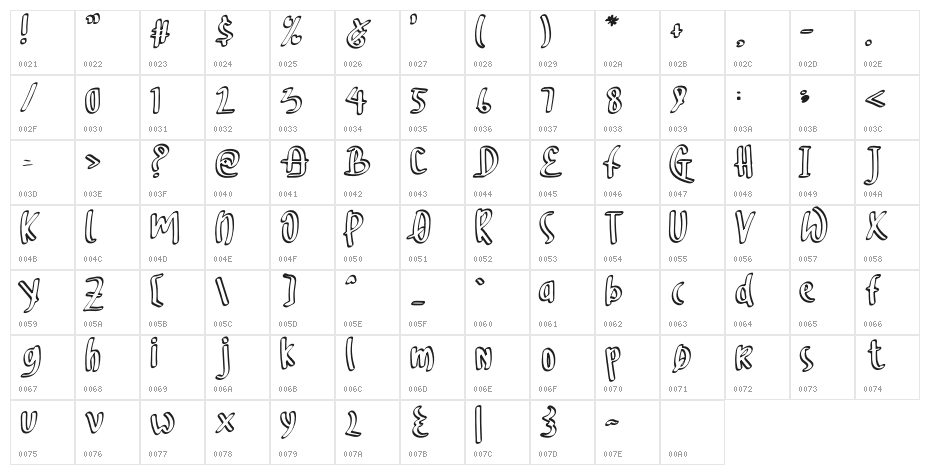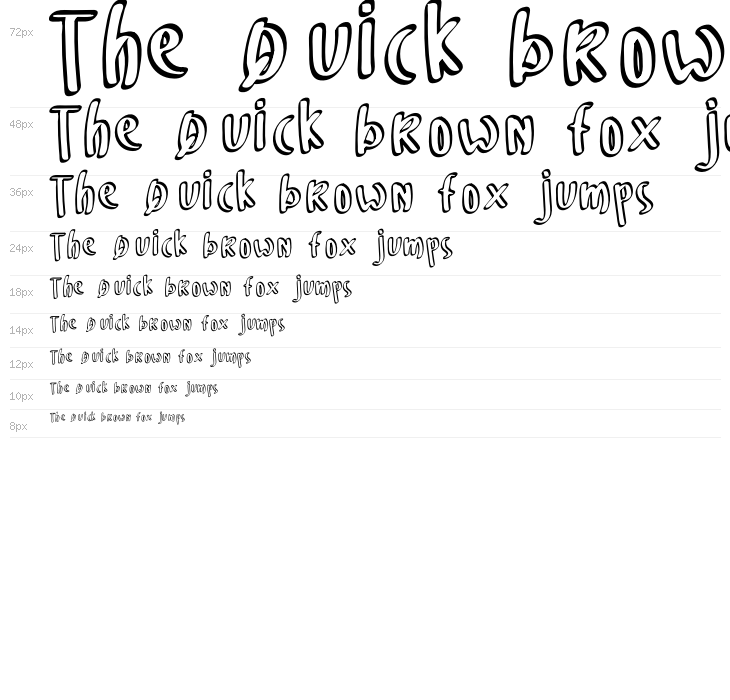
Monkey Font
Monkey Description
This playful and whimsical font features a bold, hand-drawn style with a cartoonish flair. The letters are outlined with a thick black stroke, giving them a three-dimensional appearance. Each character has a unique, slightly irregular shape, adding to the font's lively and informal feel. The uppercase and lowercase letters maintain a consistent style, with rounded edges and a slight tilt, enhancing the dynamic look. Numbers and special characters follow the same design principles, ensuring a cohesive appearance across all elements. This font is ideal for projects that require a fun and engaging visual impact.
| Overall Style | Playful, Whimsical |
| Proposed Projects | Ideal for children's books, comic strips, playful branding, and party invitations. |